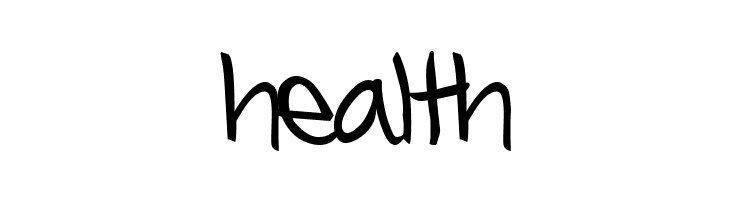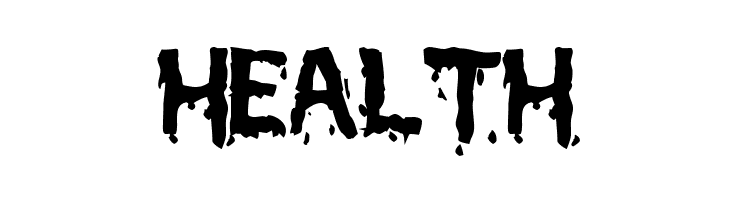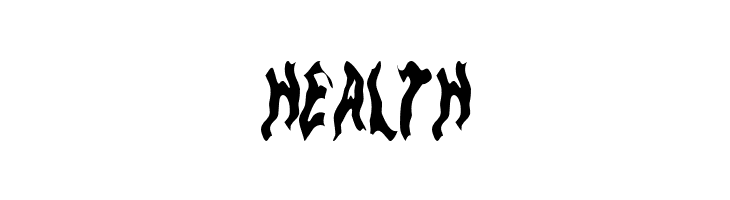
A medieval-inspired font with sharp serifs and a distressed texture, perfect for fantasy themes.
A bold, expressive handwritten font with a playful and artistic style.
A bold, rock-inspired font with musical elements and a grunge aesthetic.
A vintage-inspired font with sharp serifs and art deco elements.
A bold, italic, handwritten font with a playful, scribbled style.
A bold, jagged font with an eerie, shadow-like design.
A bold, playful font with rounded strokes and a modern, bubble-like appearance.